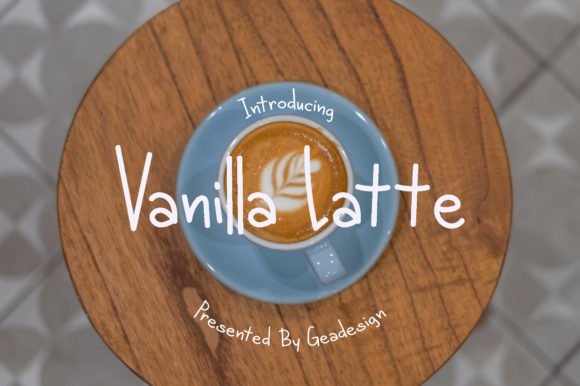
Journey into the world of Vanilla Latte Font, a delectable handwritten font that dances with elegance and simplicity. Crafted by the skilled hands of geadesign, this script font is a sweet delight for eyes to behold. Like a warm hug in the form of letters, Vanilla Latte Font is a treasure that will transform your creative visions into captivating masterpieces.
Indulge in the sweetness of Vanilla Latte Font, where each letter is a sip of inspiration. This exquisite font will enchant your projects with its graceful strokes, alluring curves, and playful charm. A perfect choice for those seeking a font that exudes warmth, authenticity, and a touch of whimsy.
Unleash your creativity with Vanilla Latte Font, a versatile font perfect for an array of projects. It adds a personal touch to branding, crafting elegant logos, delightful social media graphics, and charming invitations. Its versatility shines in the world of crafting, adorning handmade cards, personalized mugs, and heartfelt quotes with a unique touch.
With Vanilla Latte Font, your designs will blossom into works of art, brimming with emotion and individuality. Let your words dance across the page, infused with the charm of handwritten elegance. It's a font that speaks volumes, expressing your unique style and capturing the essence of your creative soul.
Vanilla Latte Font is more than just a font; it's an experience. It's the feeling of joy that comes from creating something truly special. It's the satisfaction of knowing that your designs are not just visually appealing but also deeply personal. It's the confidence that comes from using a font that resonates with your vision and helps you bring your ideas to life.